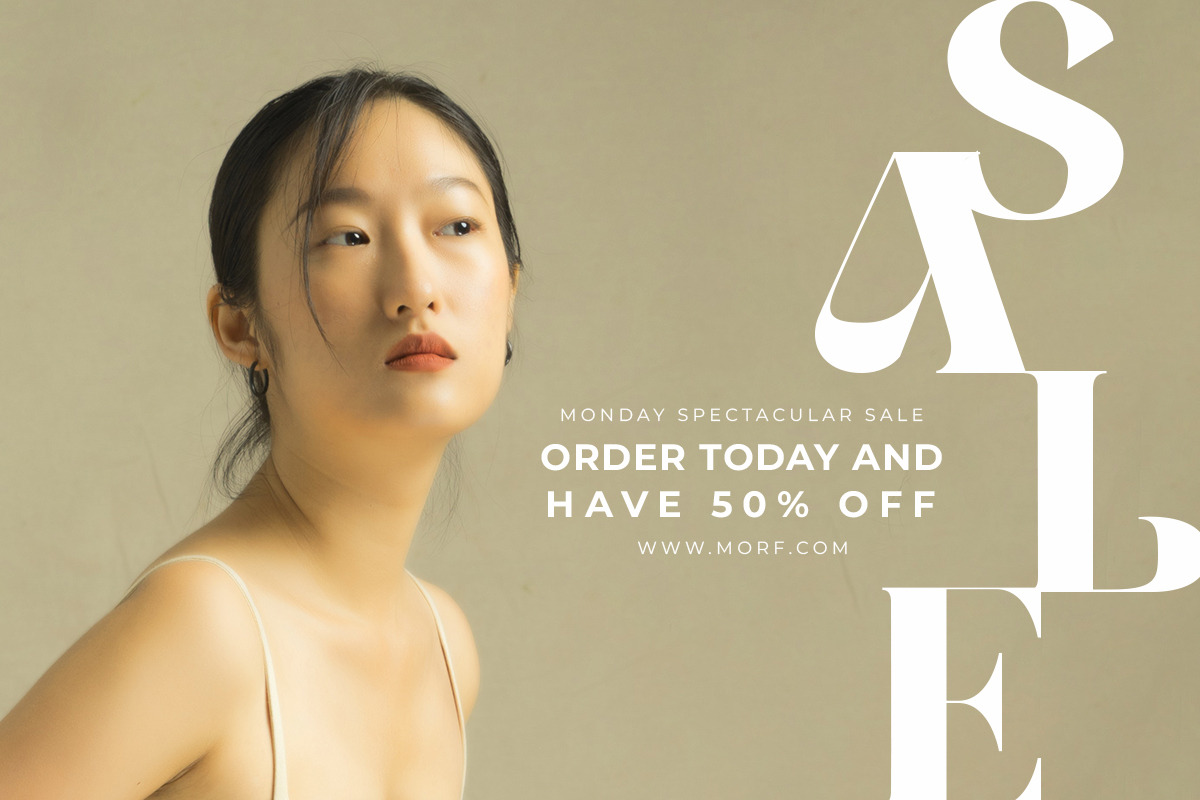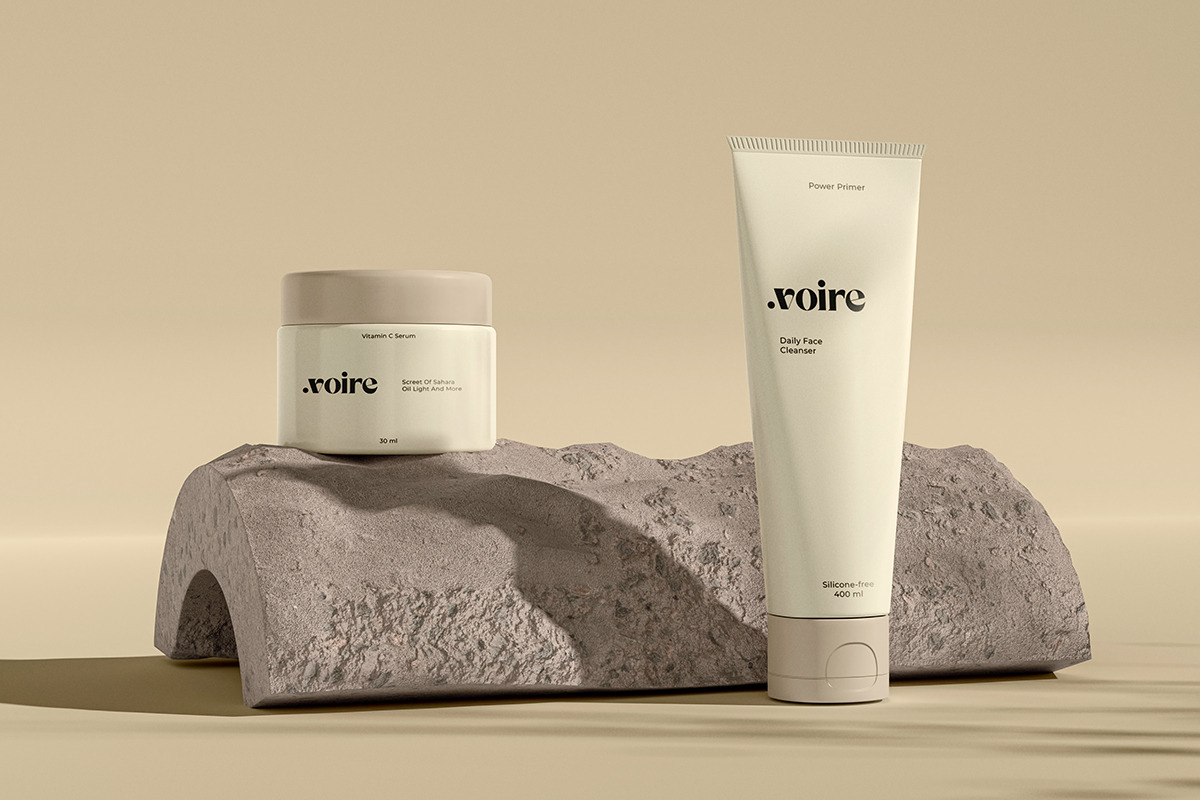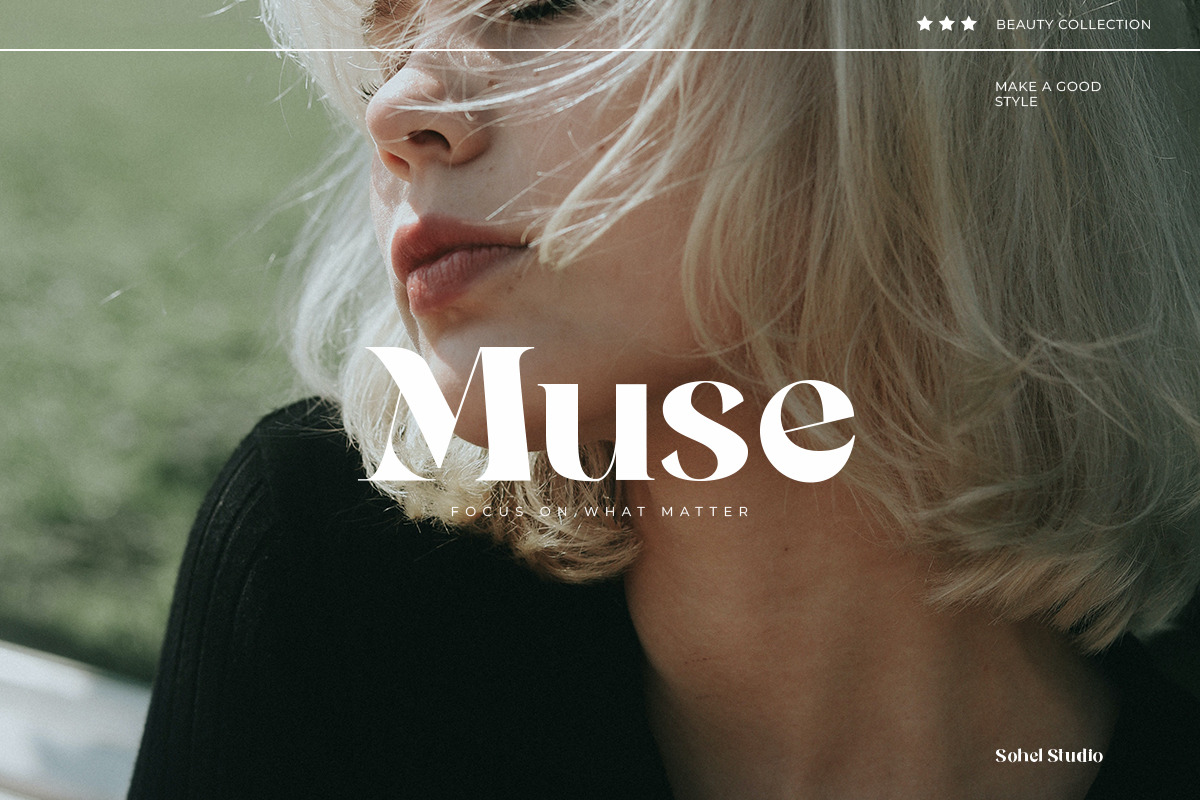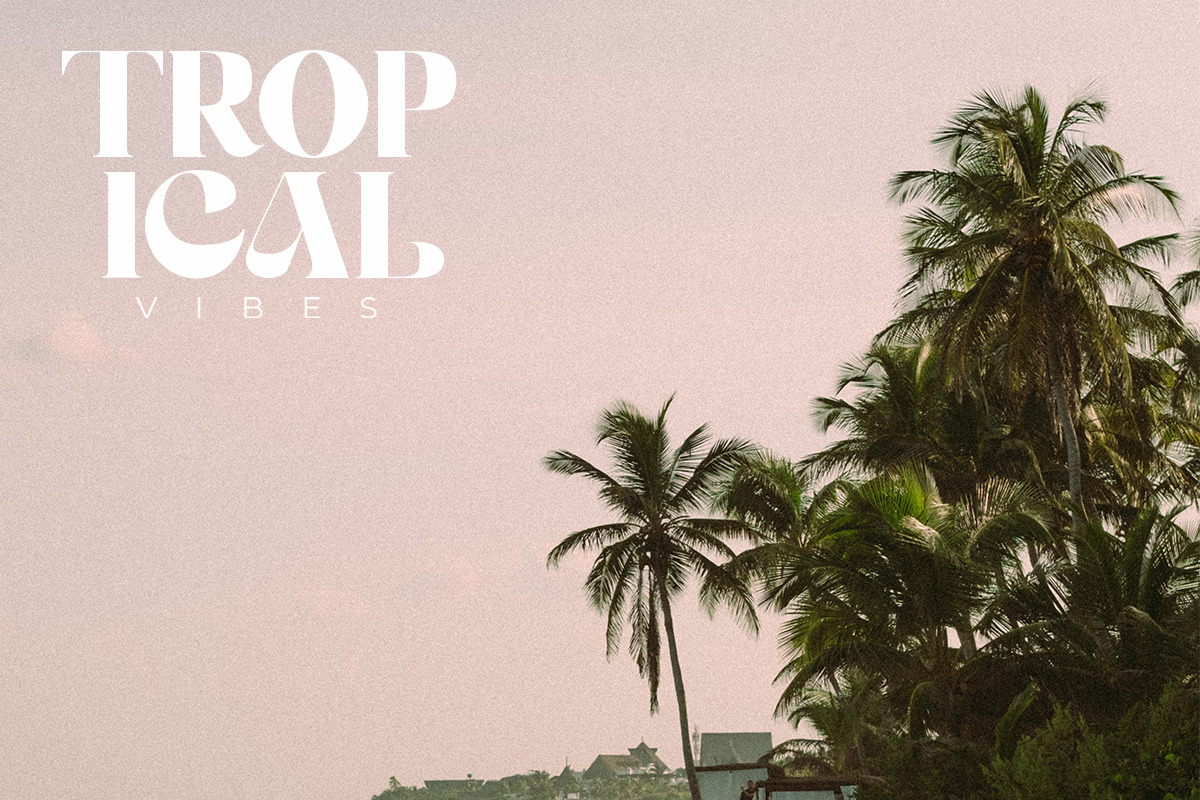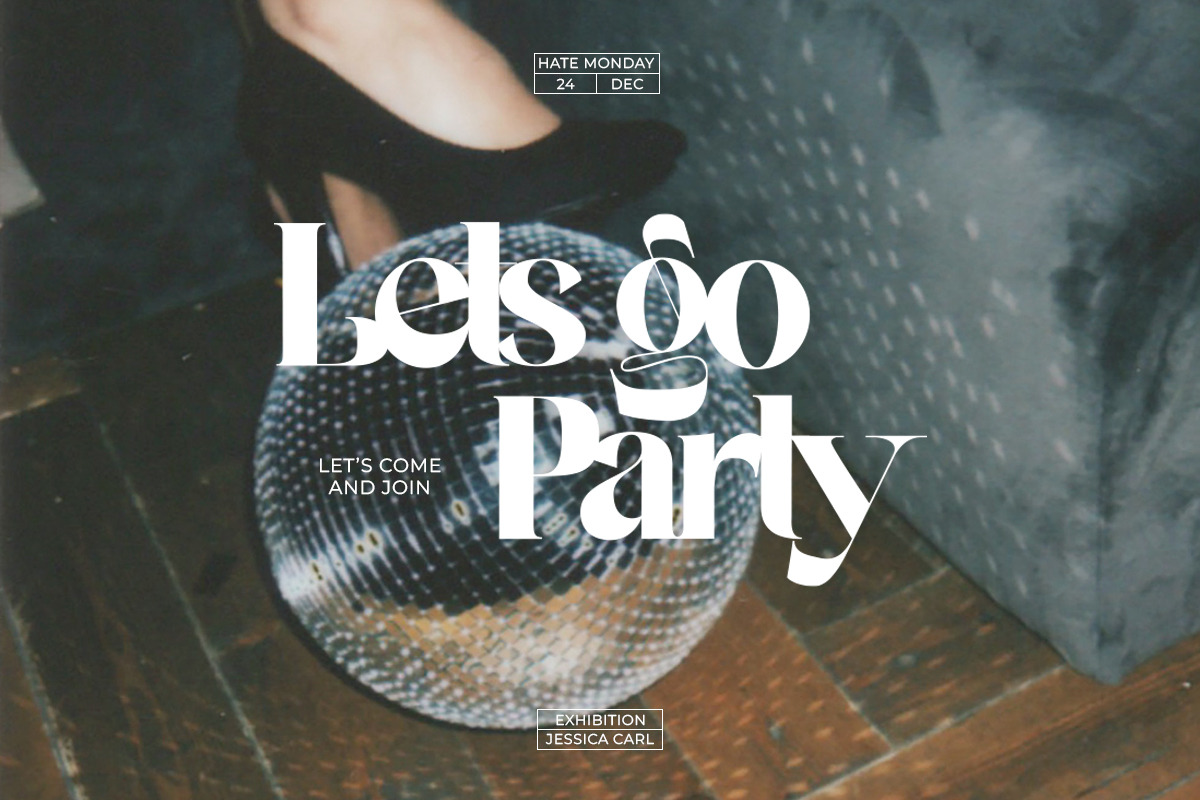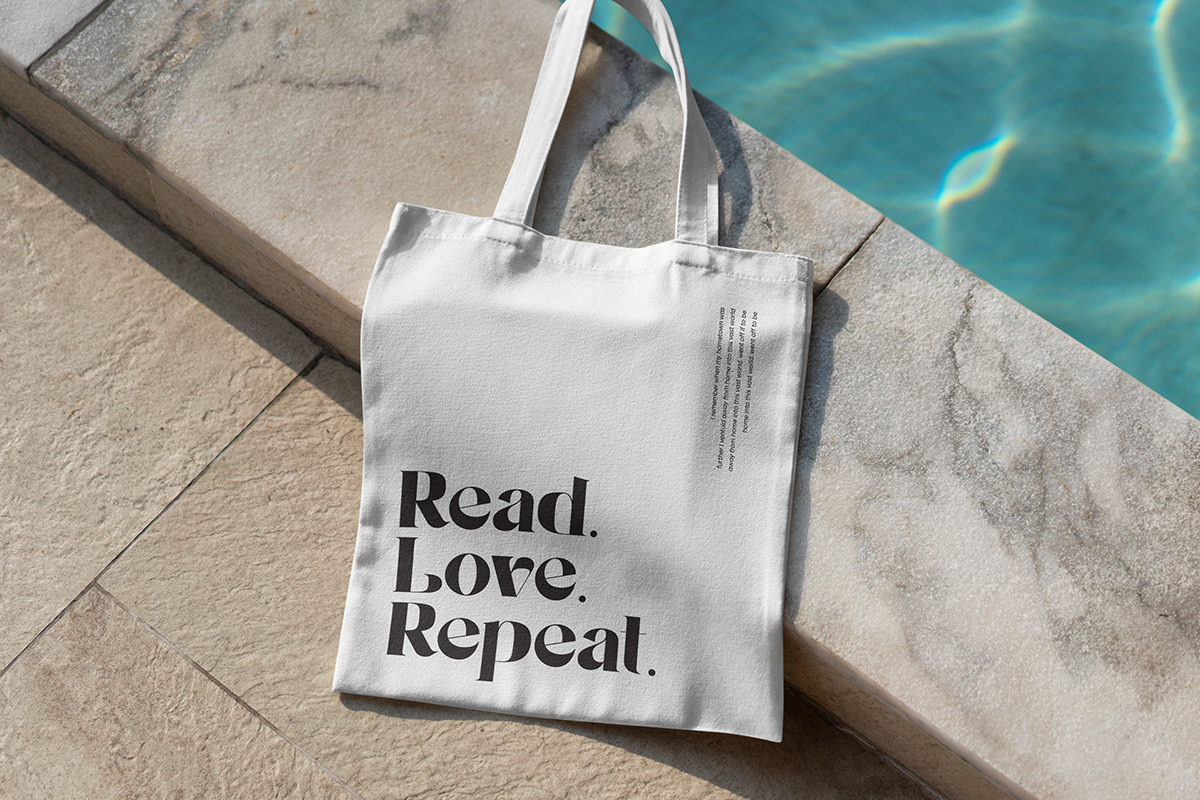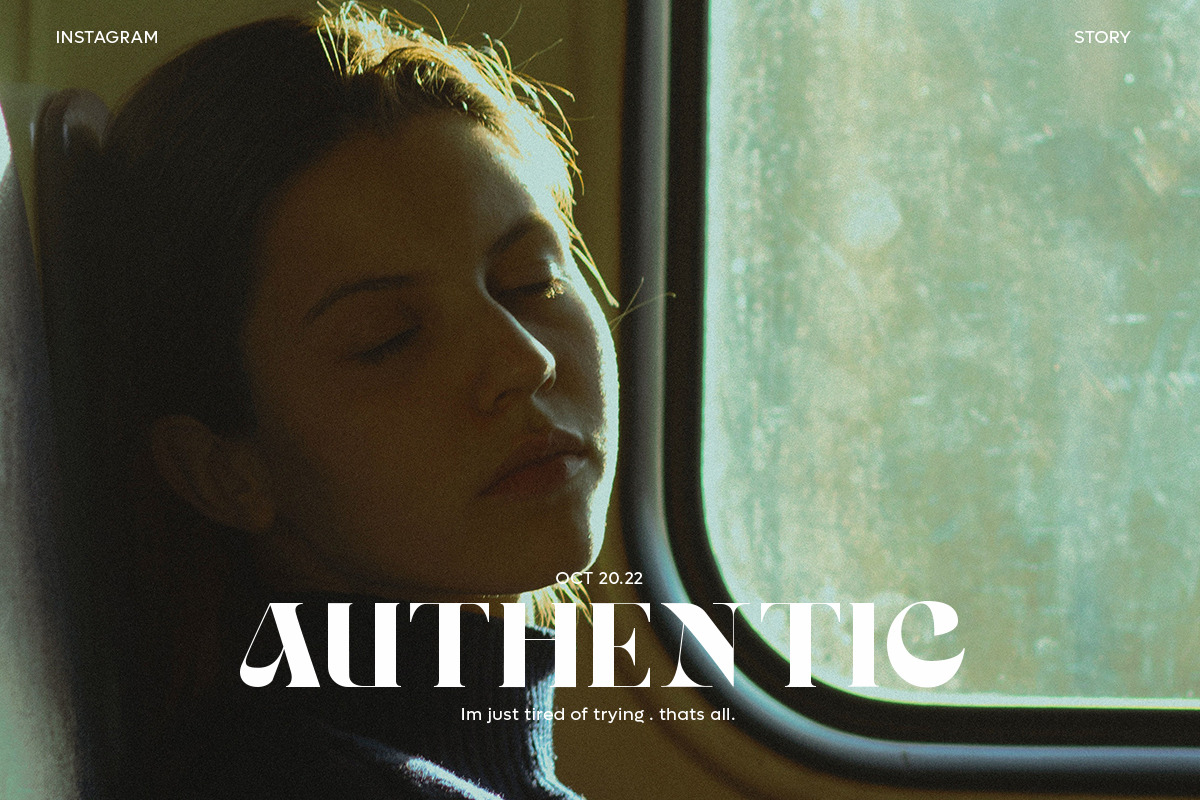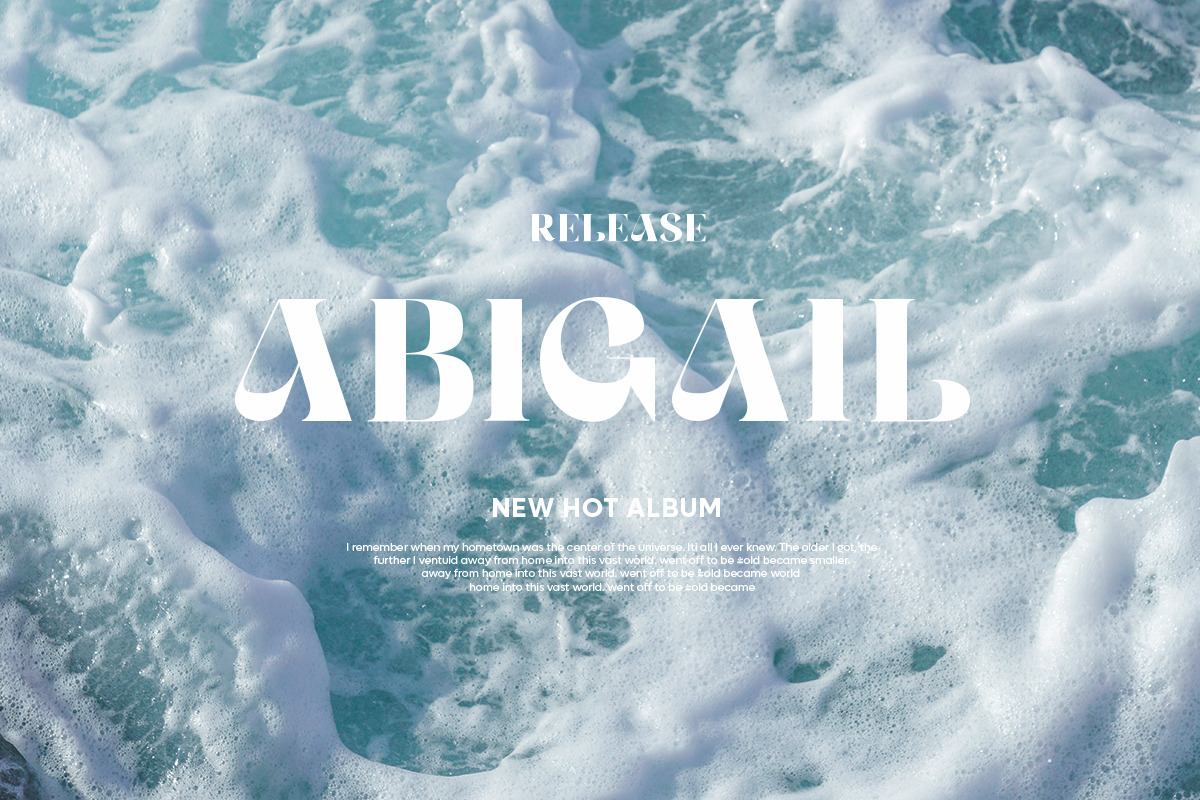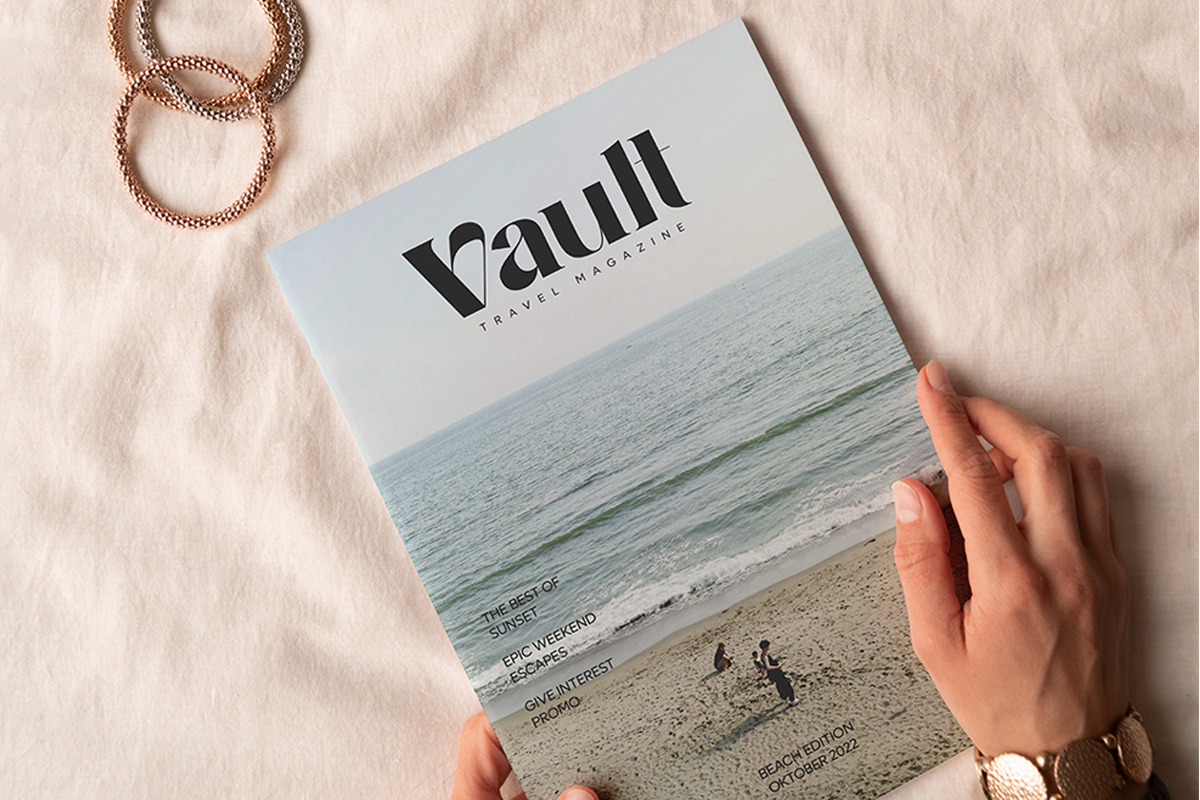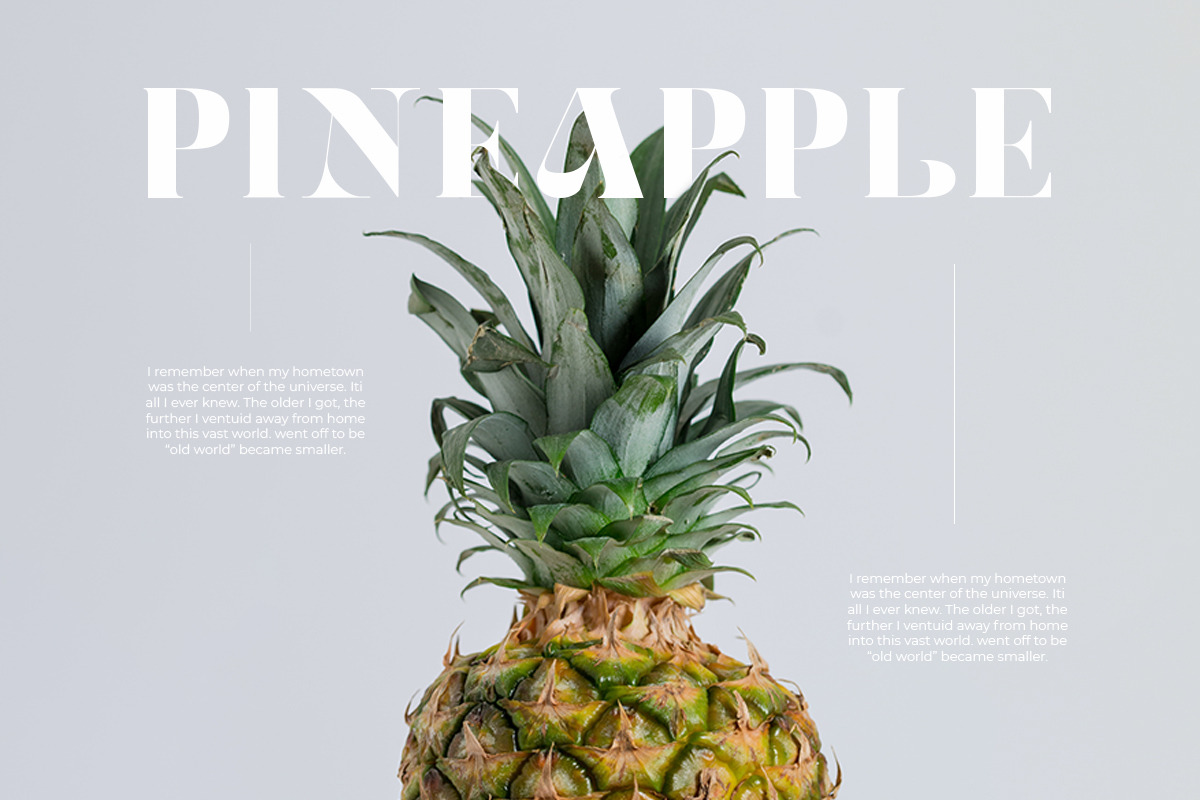
Violin - Elegant Advertisement Serif
Violin is Modern Display Font. This typeface is perfect for an headlines, classy editorial design, magazine, fashion brand , cosmetic brand, fashion promotion , modern advertising design, invitation card, art quote, home decoration , book/cover titles, special events, and much more.